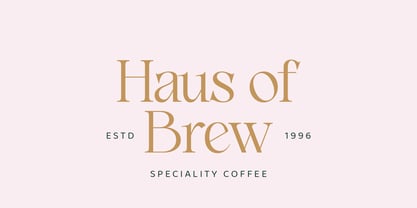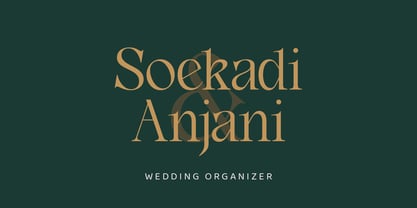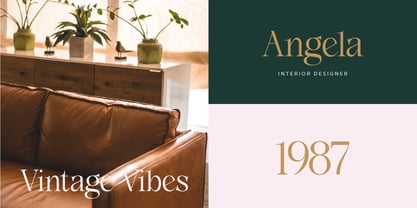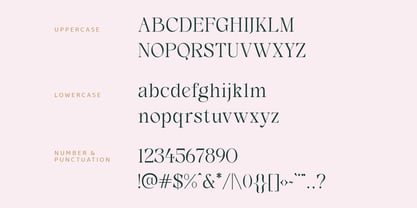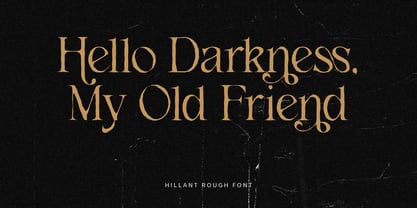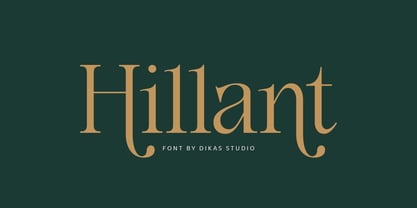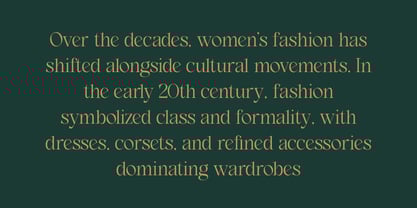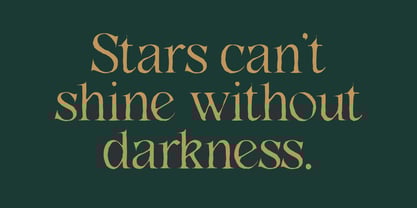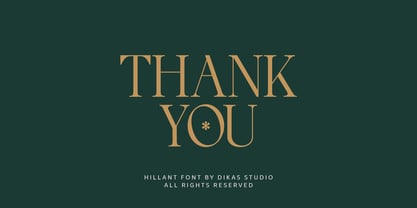
DKS Hillant
by Dikas Studio
The DKS Hillant Font Family was designed by Andika Setiawan and published by Dikas Studio. DKS Hillant contains 2 styles and family package options.
Hillant is a condensed serif typeface with sharp serifs that combines elegance, vintage charm, and a slightly dramatic feel. Its condensed shape keeps it highly legible in large display settings, making it perfect for headlines, logos, and posters. The font includes alternate characters for added flexibility and unique design possibilities. Inspired by vintage lettering, Hillant is ideal for fashion branding, wedding invitations, and projects that demand a bold yet sophisticated serif.